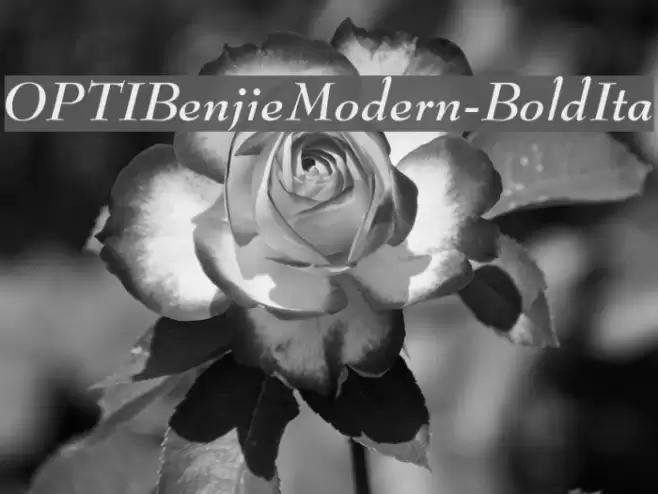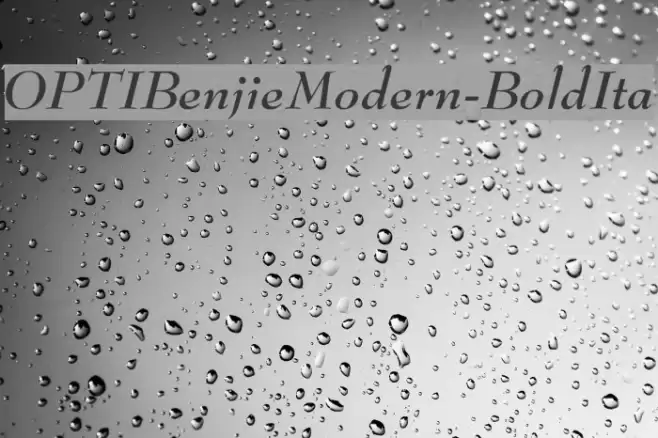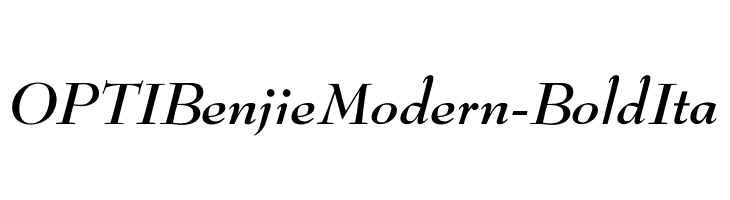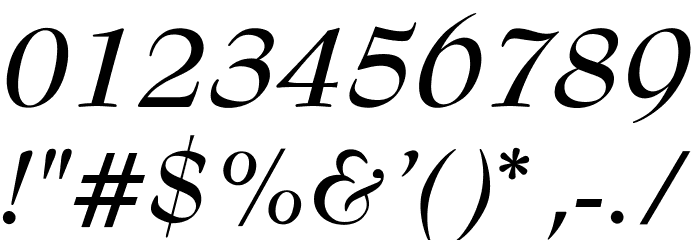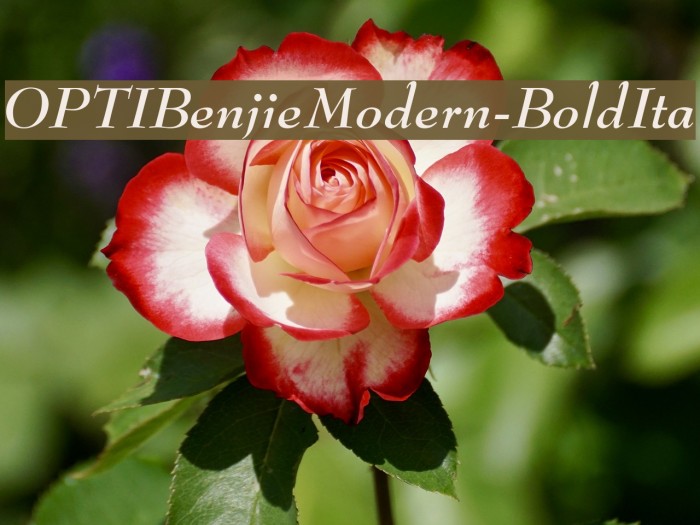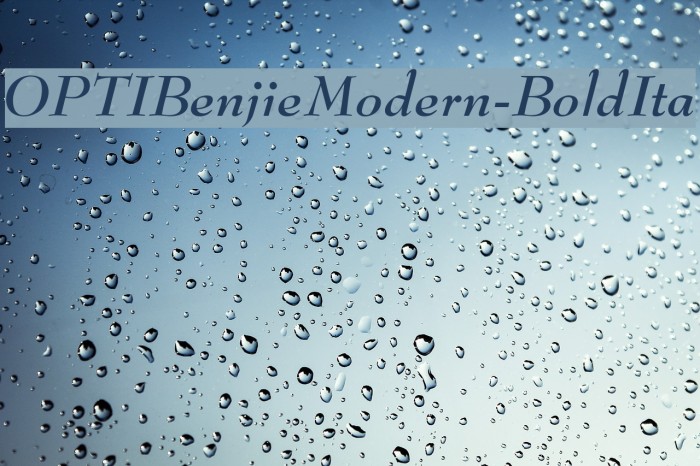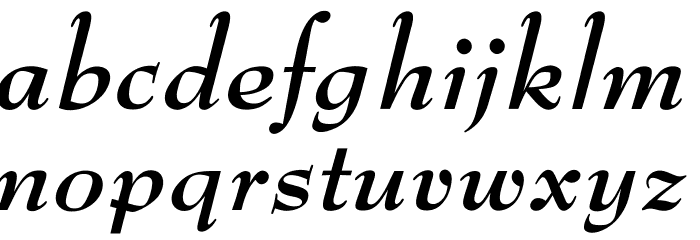
OPTIBenjieModern-BoldIta Font
OPTIBenjieModern-BoldIta Description
This font features a classic serif style with a modern twist, characterized by its bold and italicized letterforms. The uppercase letters exhibit a strong presence with sharp serifs and a slight slant, giving them a dynamic and elegant appearance. The lowercase letters maintain a consistent flow, with smooth curves and a harmonious balance between thick and thin strokes. Numbers are clear and legible, following the same stylistic cues as the letters. Special characters are well-integrated, ensuring versatility in various design contexts. The overall design exudes sophistication and is suitable for projects that require a touch of elegance and modernity.
A bold, italic serif font with a modern and elegant style from Uncategorized fonts.
- Proposed Projects: Ideal for luxury branding, editorial design, wedding invitations, and high-end product packaging.
- Use Case: Headlines, Logos, Editorial design